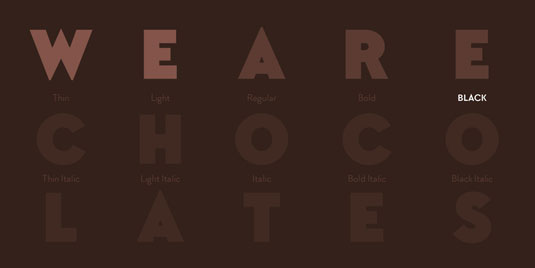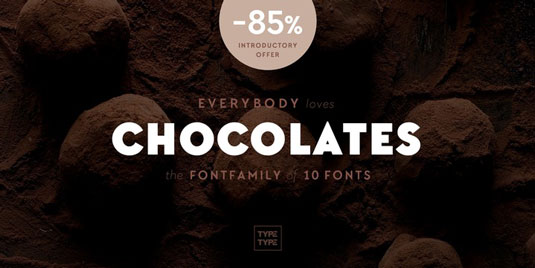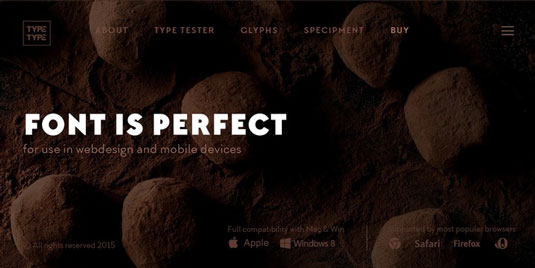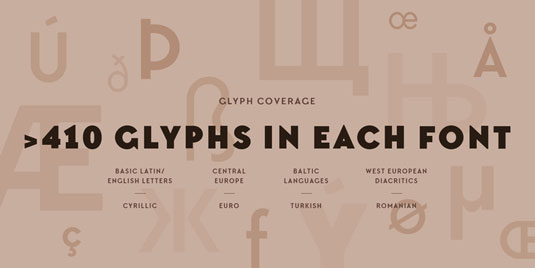
Font of the day: Chocolates
Chocolates by Ivan Gladkikh
Today's typeface of choice is Chocolates, by type designer Ivan Gladkikh. Available on MyFonts, it's described as a 'geometric grotesque, which was created for beautiful and elegant things, such as packages of chocolate'.